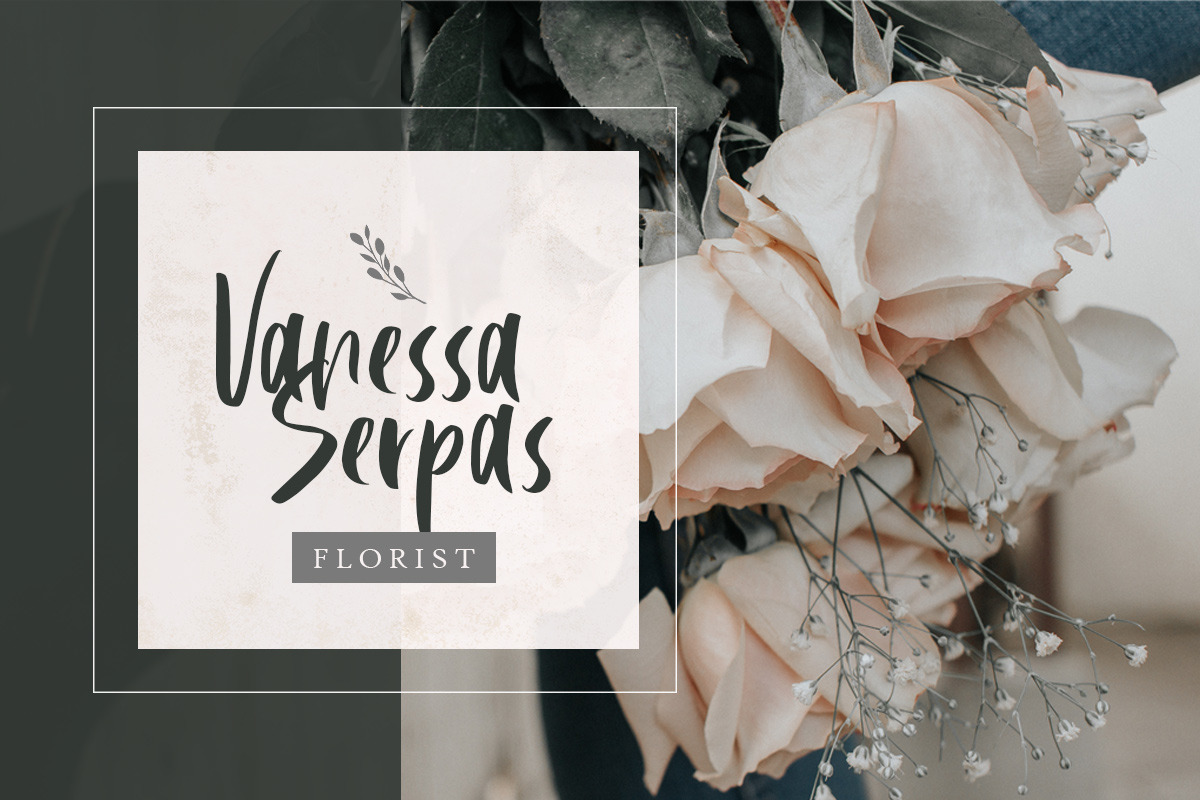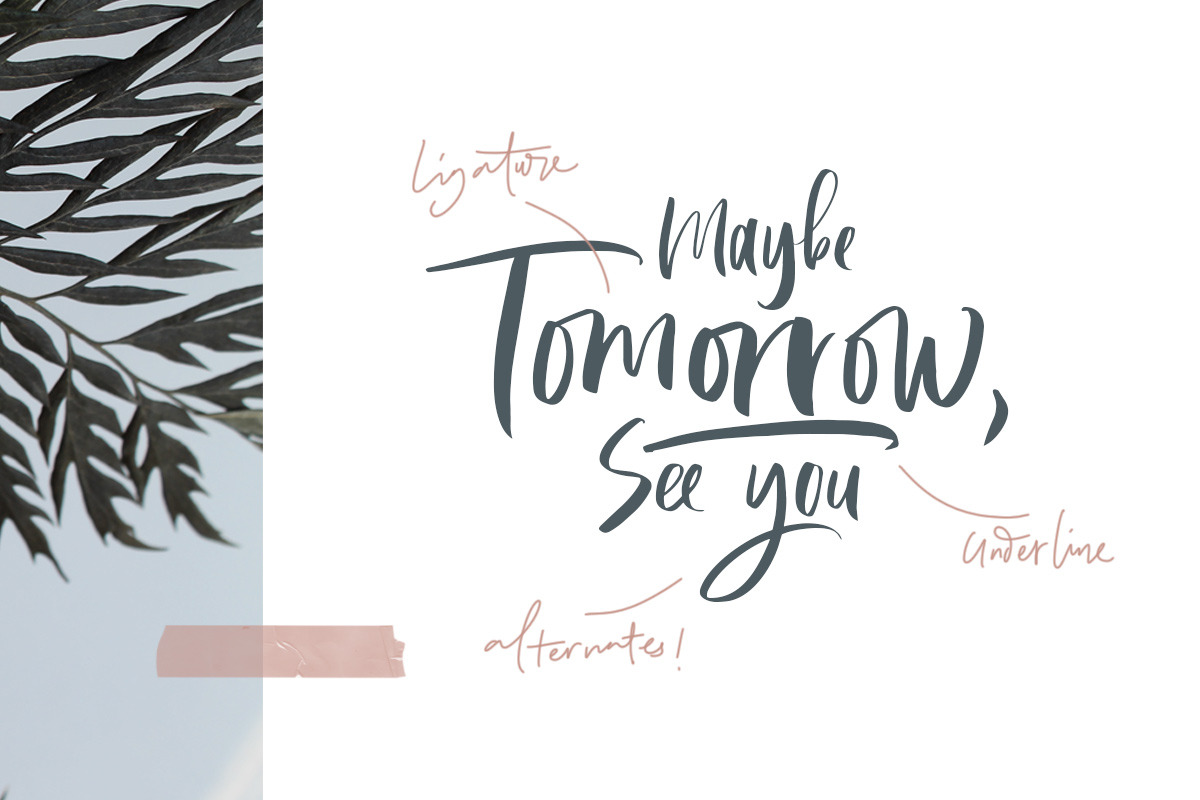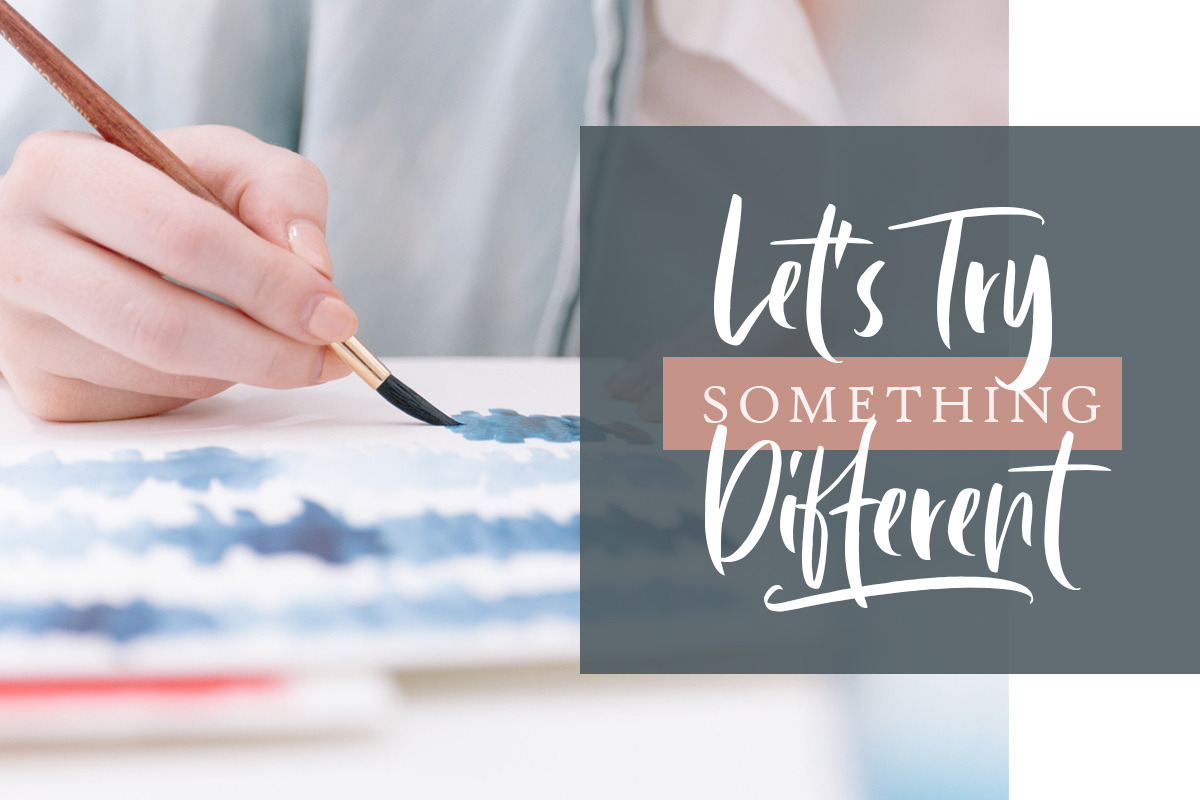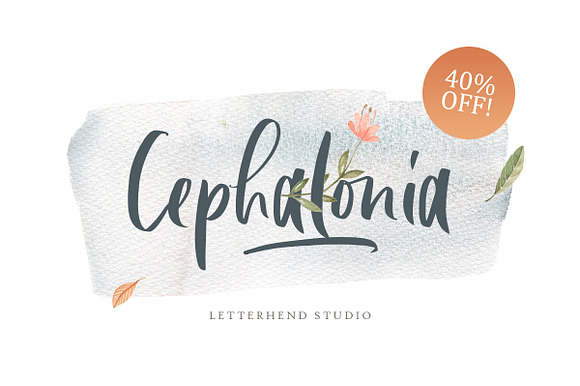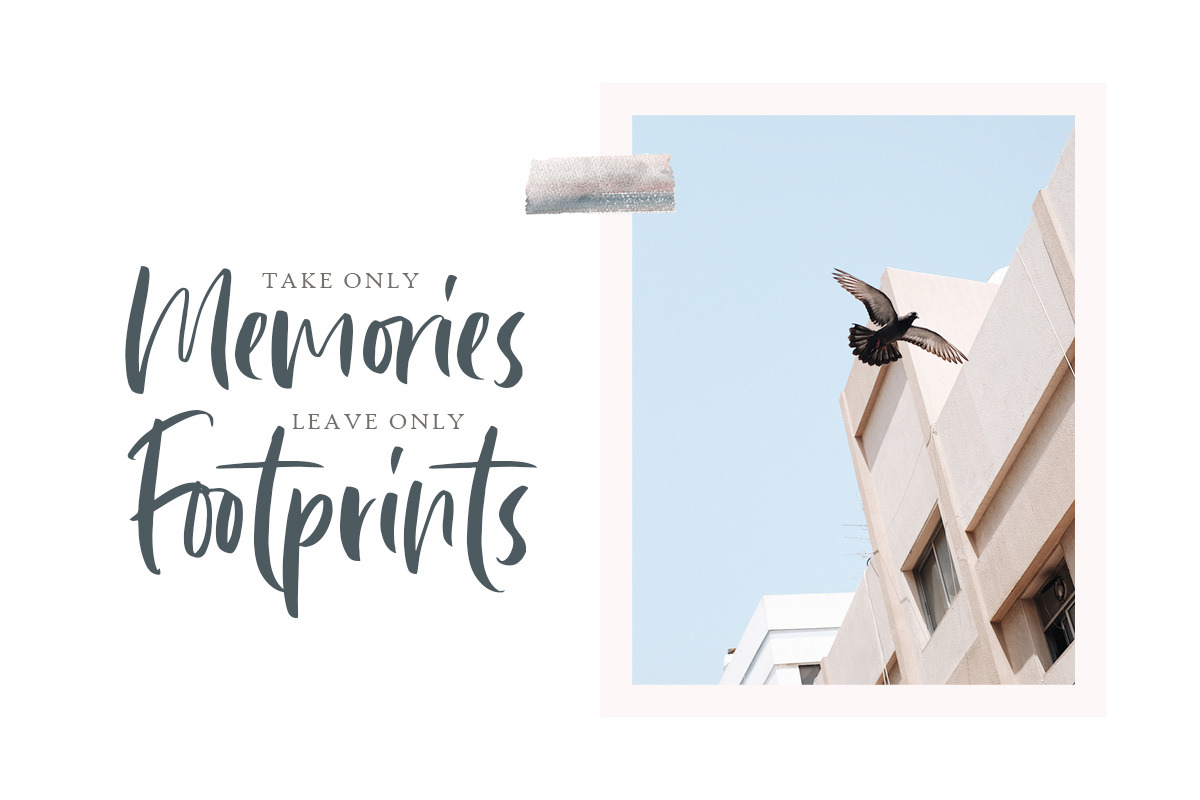
Cephalonia Font
Cephalonia is a handwritten font that included many opentype features. Including alternates, ligature, and underline. This font also comes with number, symbol, punctuation and SUPPORT MULTI LANGUAGE!. Also with PUA Encoded!
- Cephalonia is a handwritten font that included many opentype features.
- This font also comes with number, symbol, punctuation and SUPPORT MULTI LANGUAGE!.
- Cephalonia is a handwritten font that included many opentype features.
- This font also comes with number, symbol, punctuation and SUPPORT MULTI LANGUAGE!.
- Including alternates, ligature, and underline.
- This font also comes with number, symbol, punctuation and SUPPORT MULTI LANGUAGE!.
Why Cephalonia Font is worth a look
Cephalonia Font by Letterhend Studio fits naturally into Branding, posters, packaging, typography.